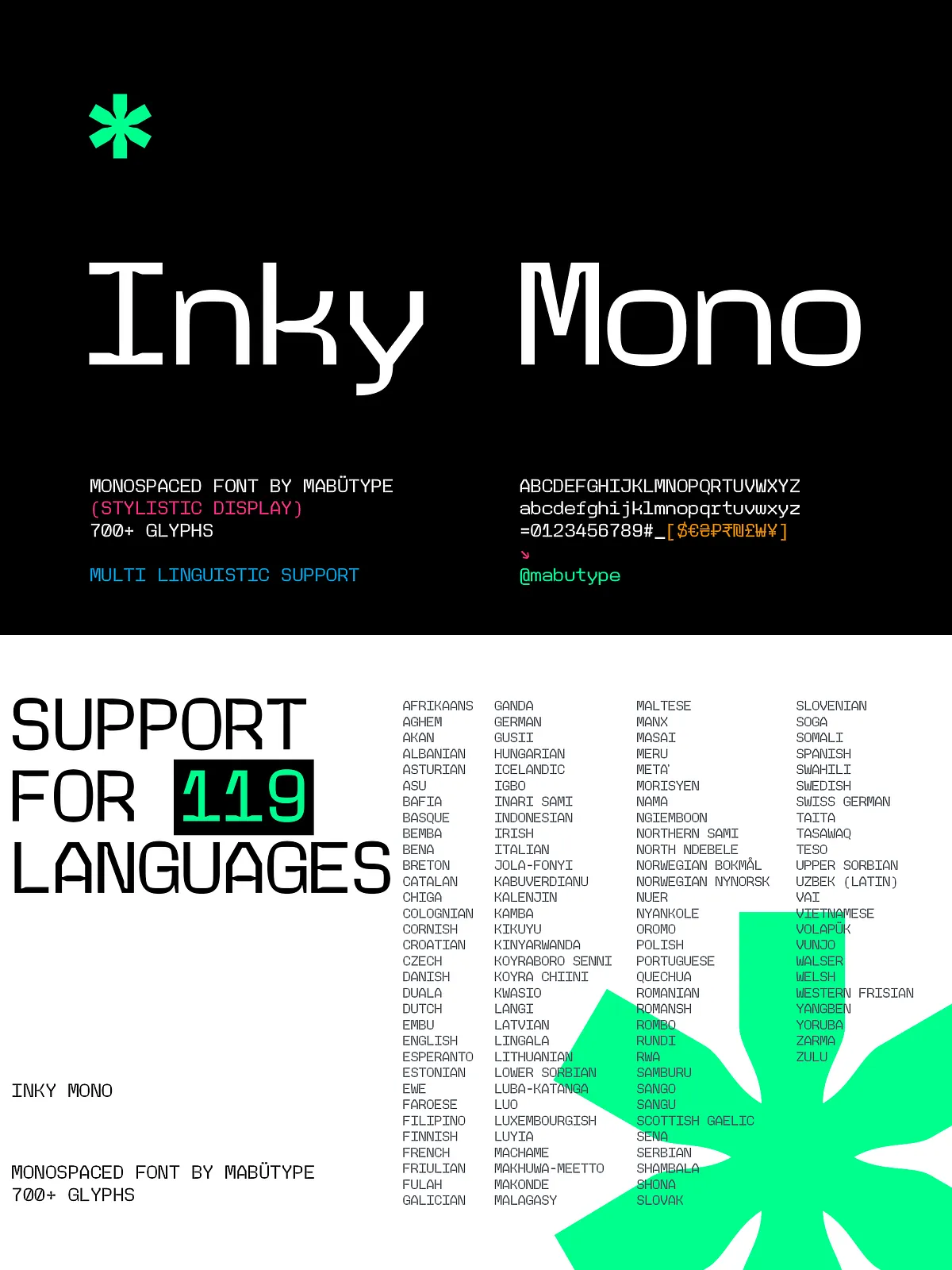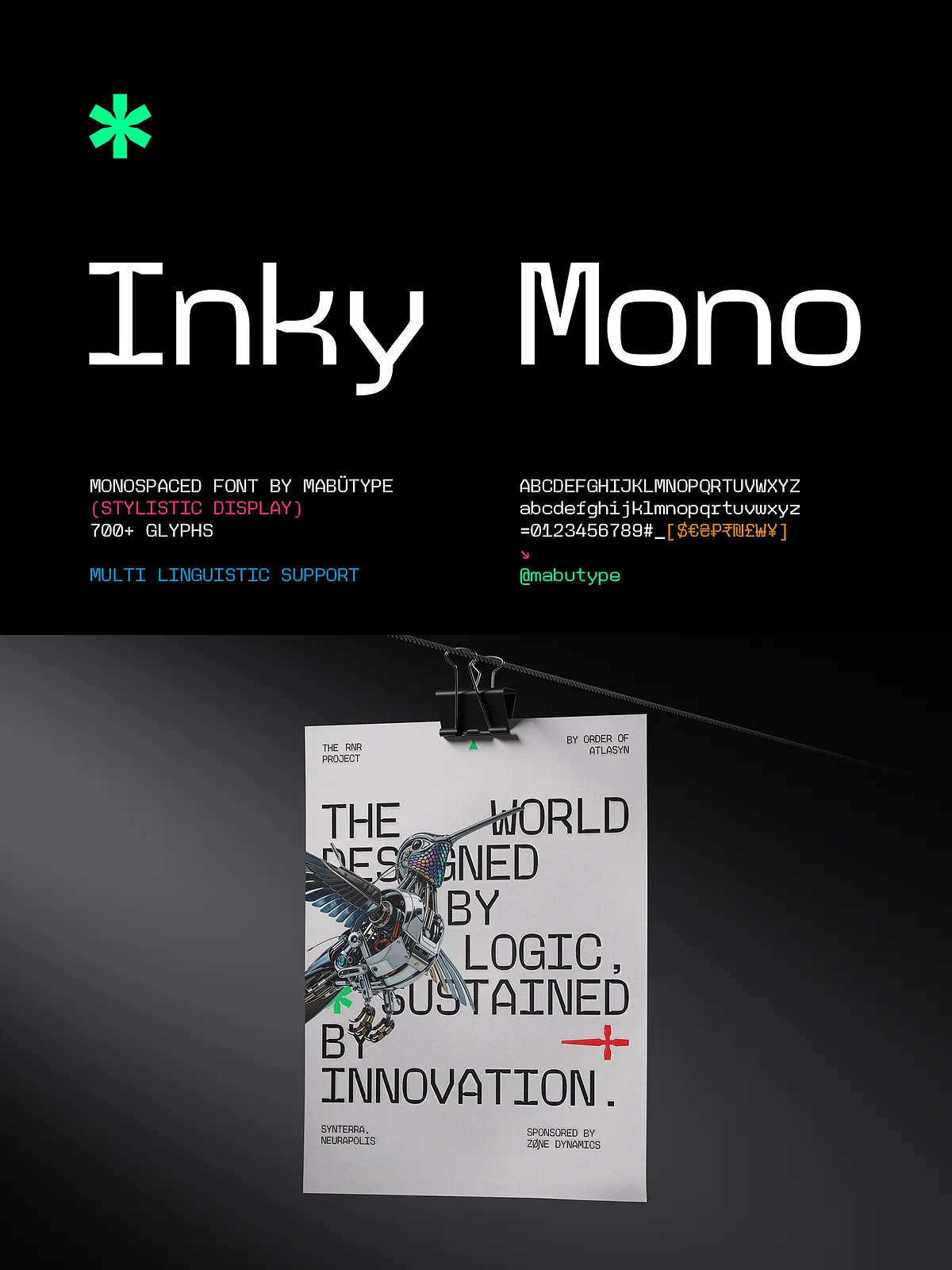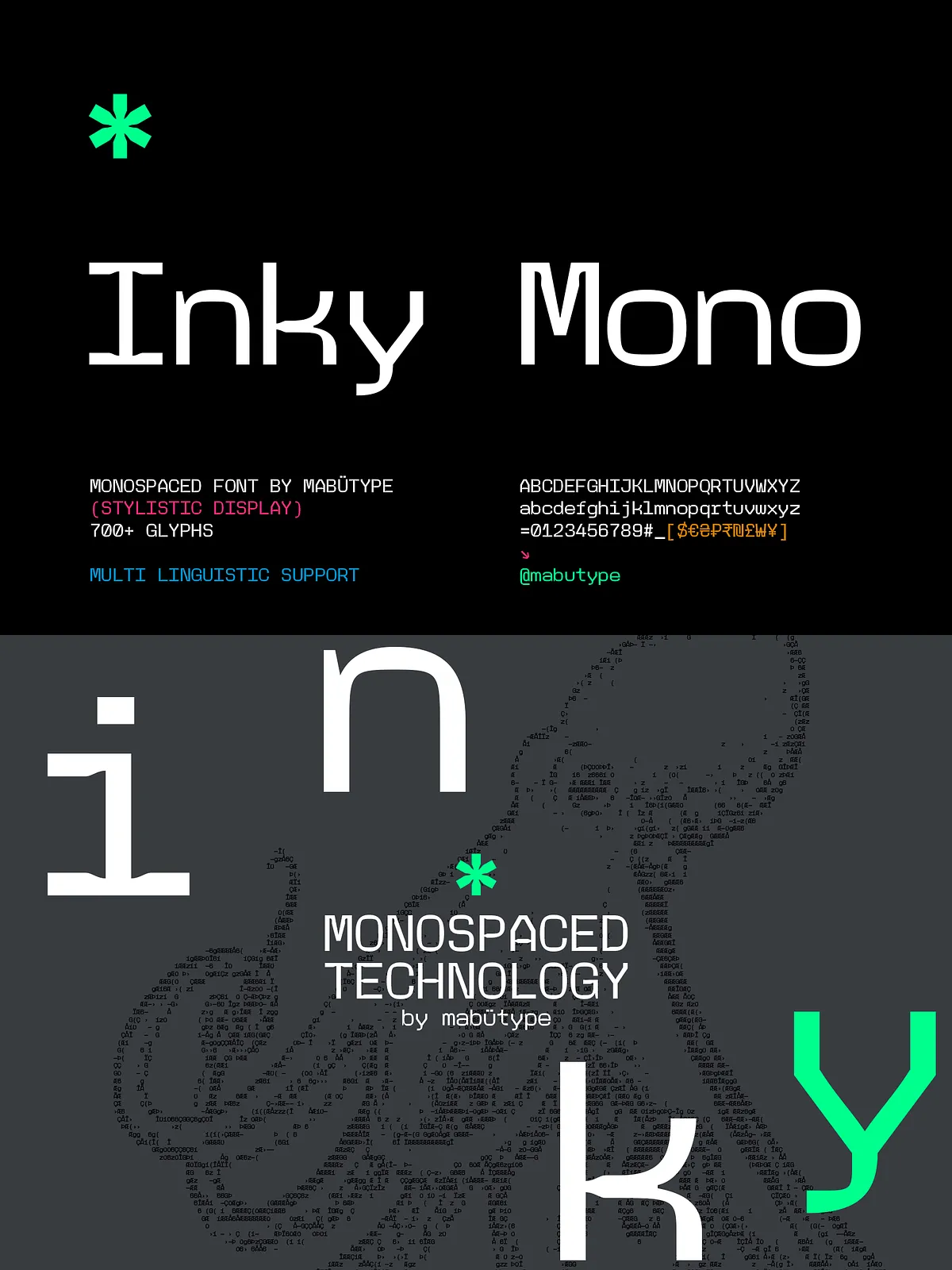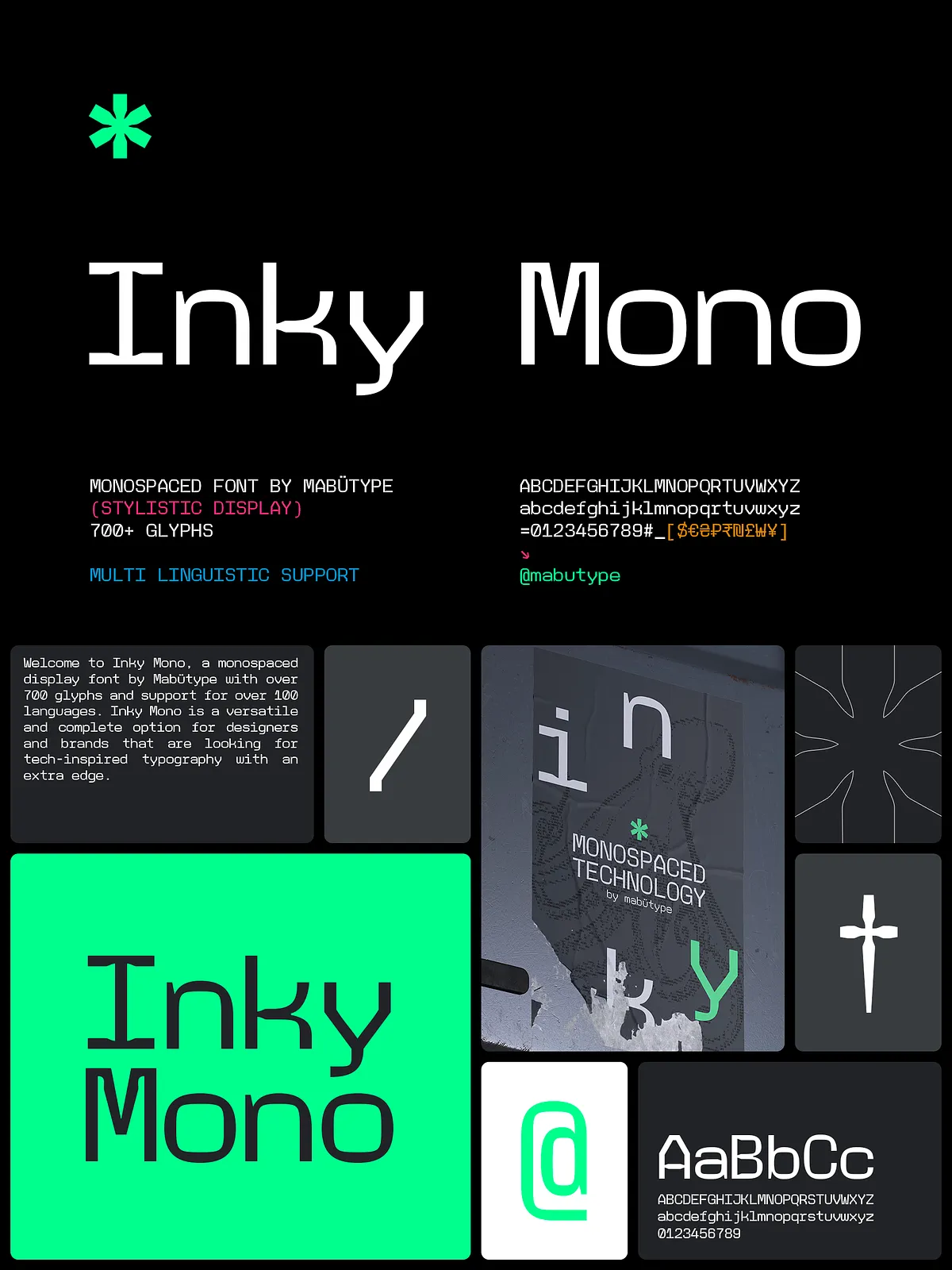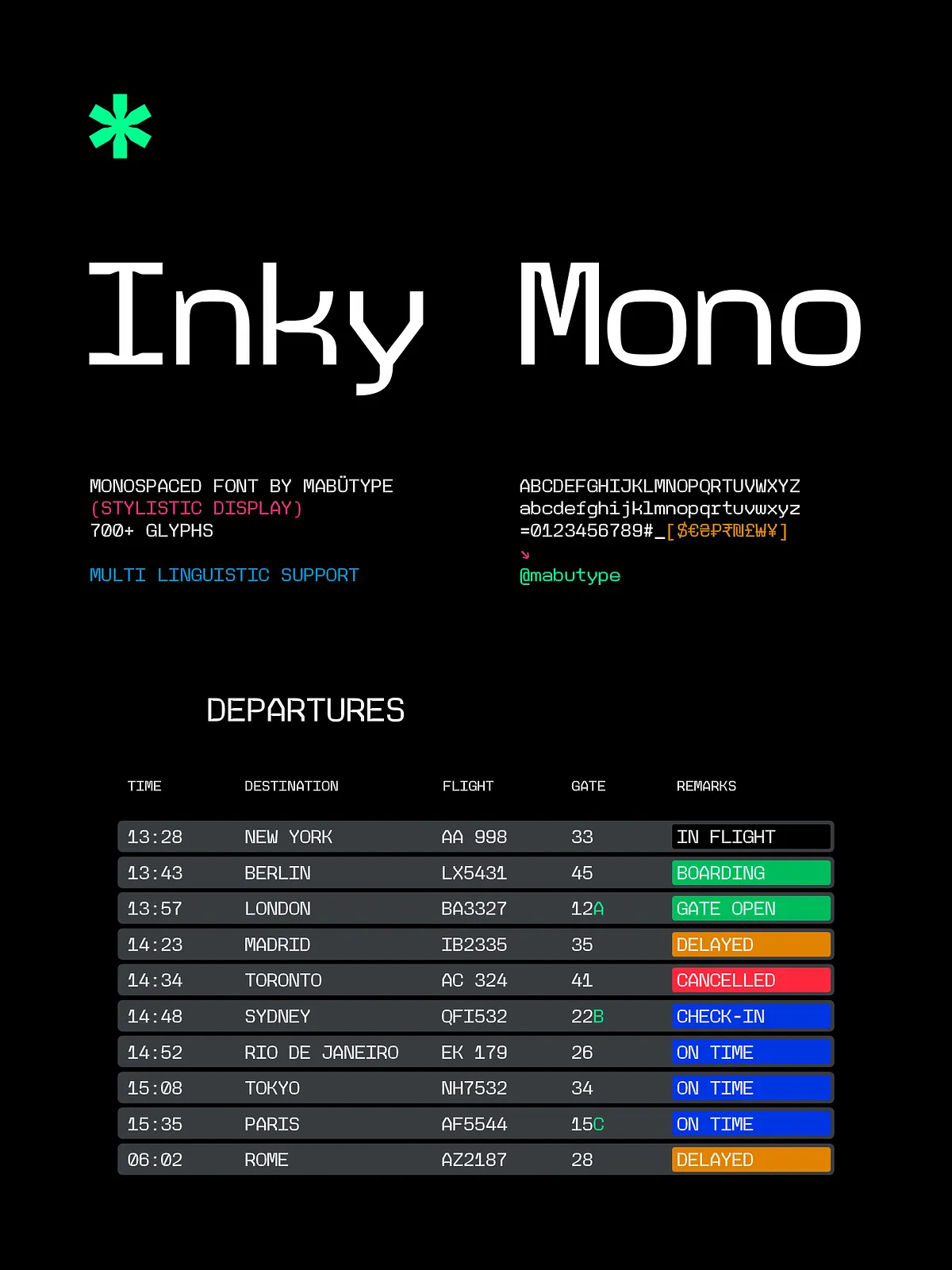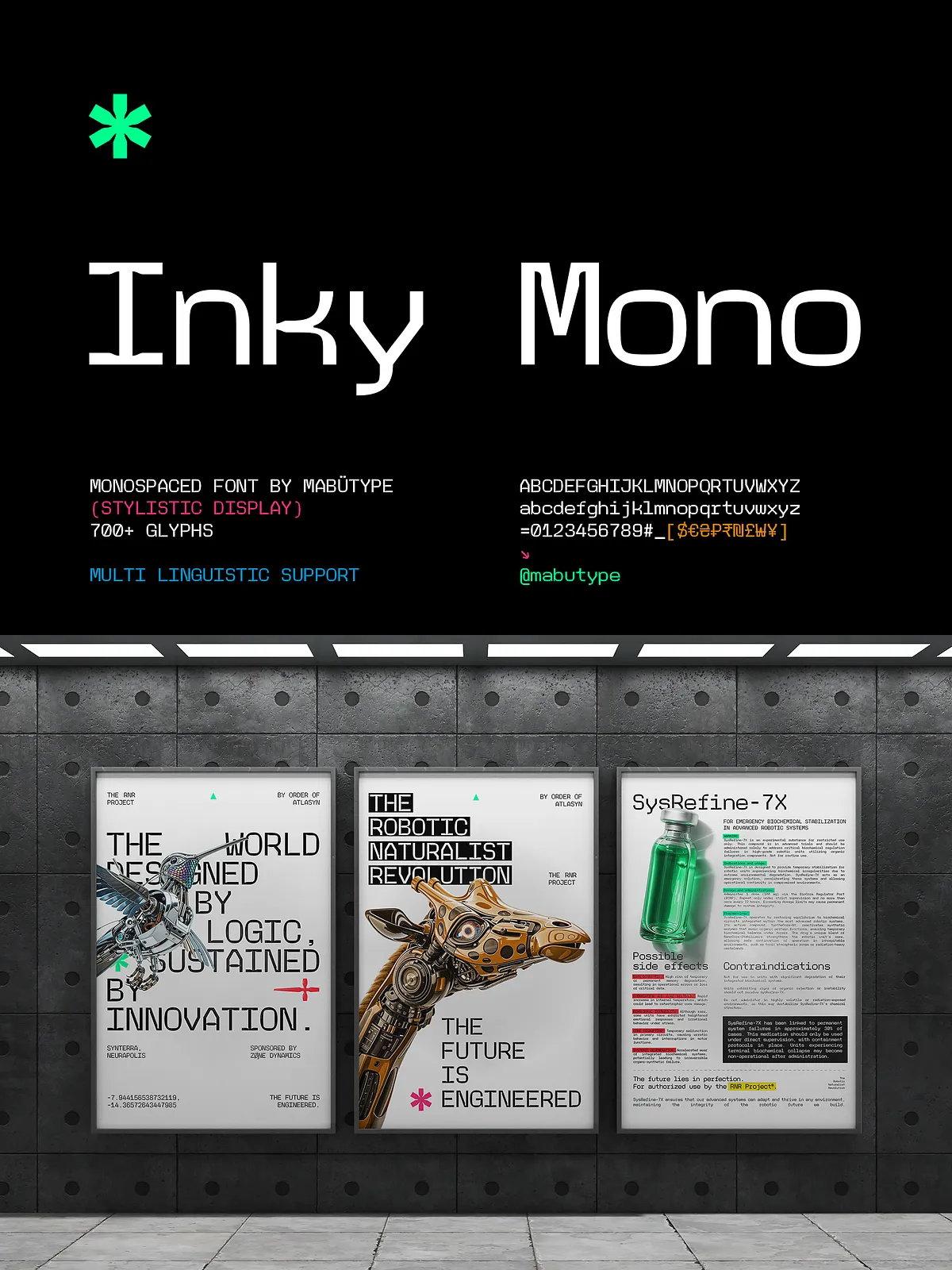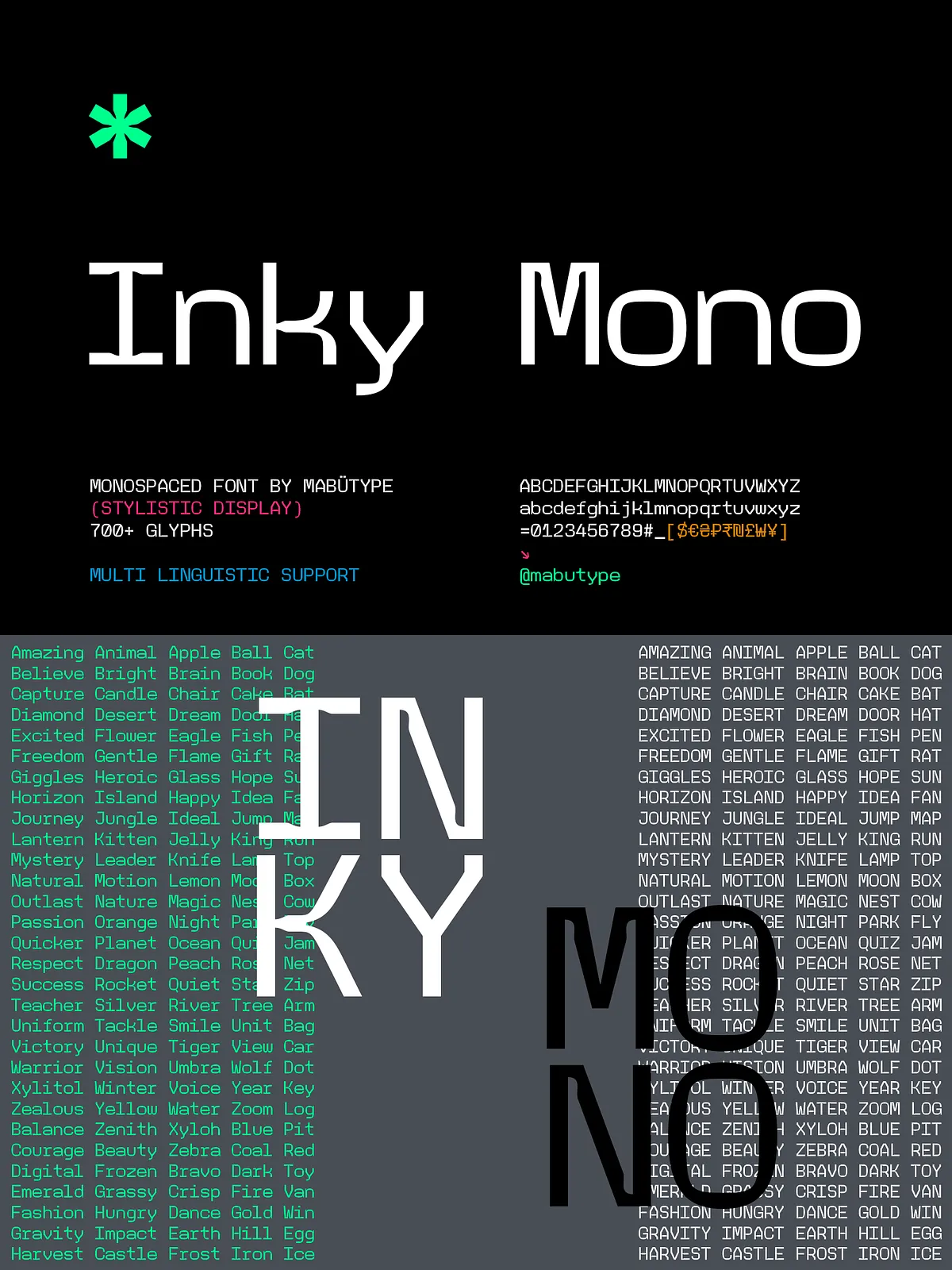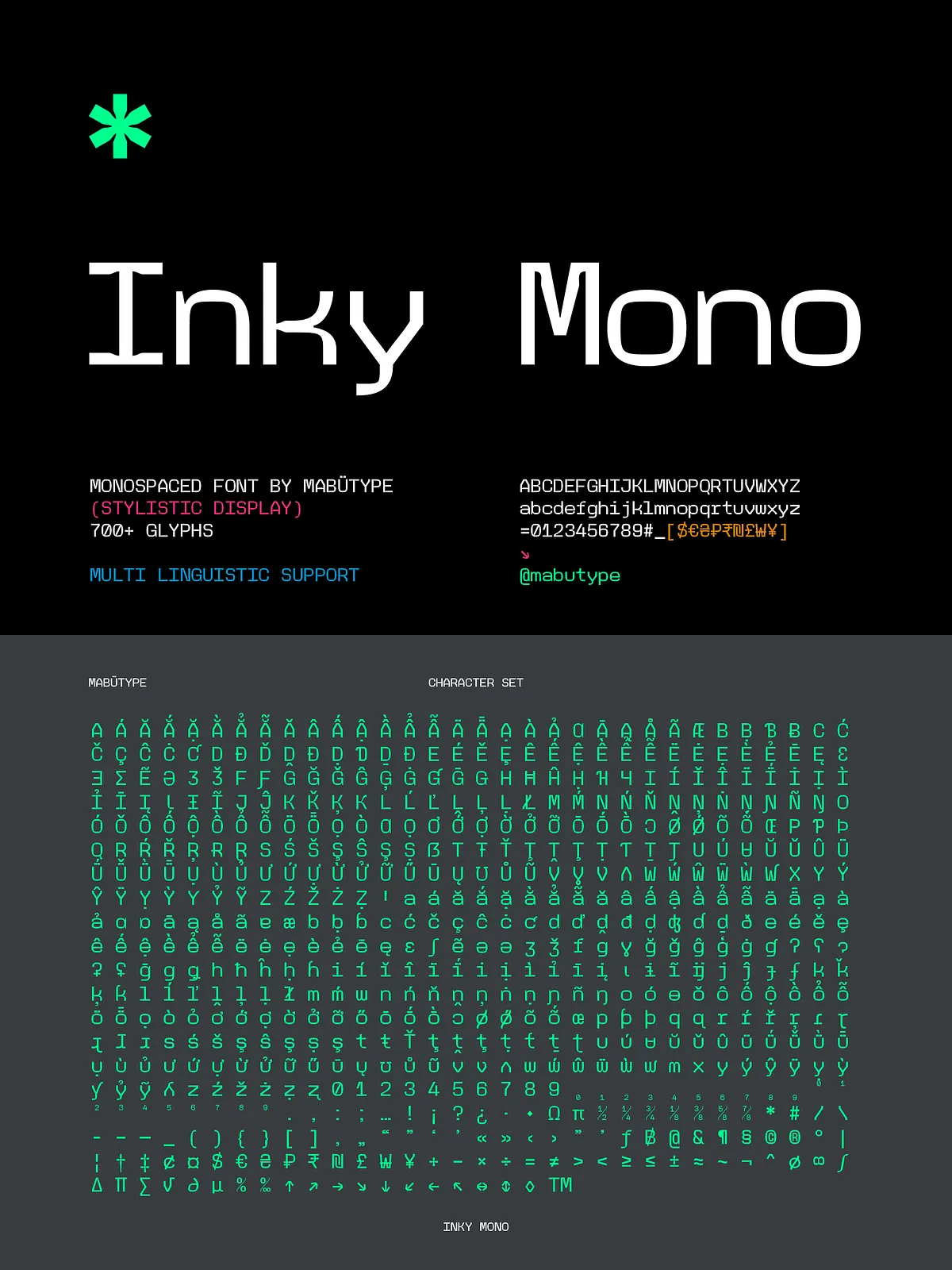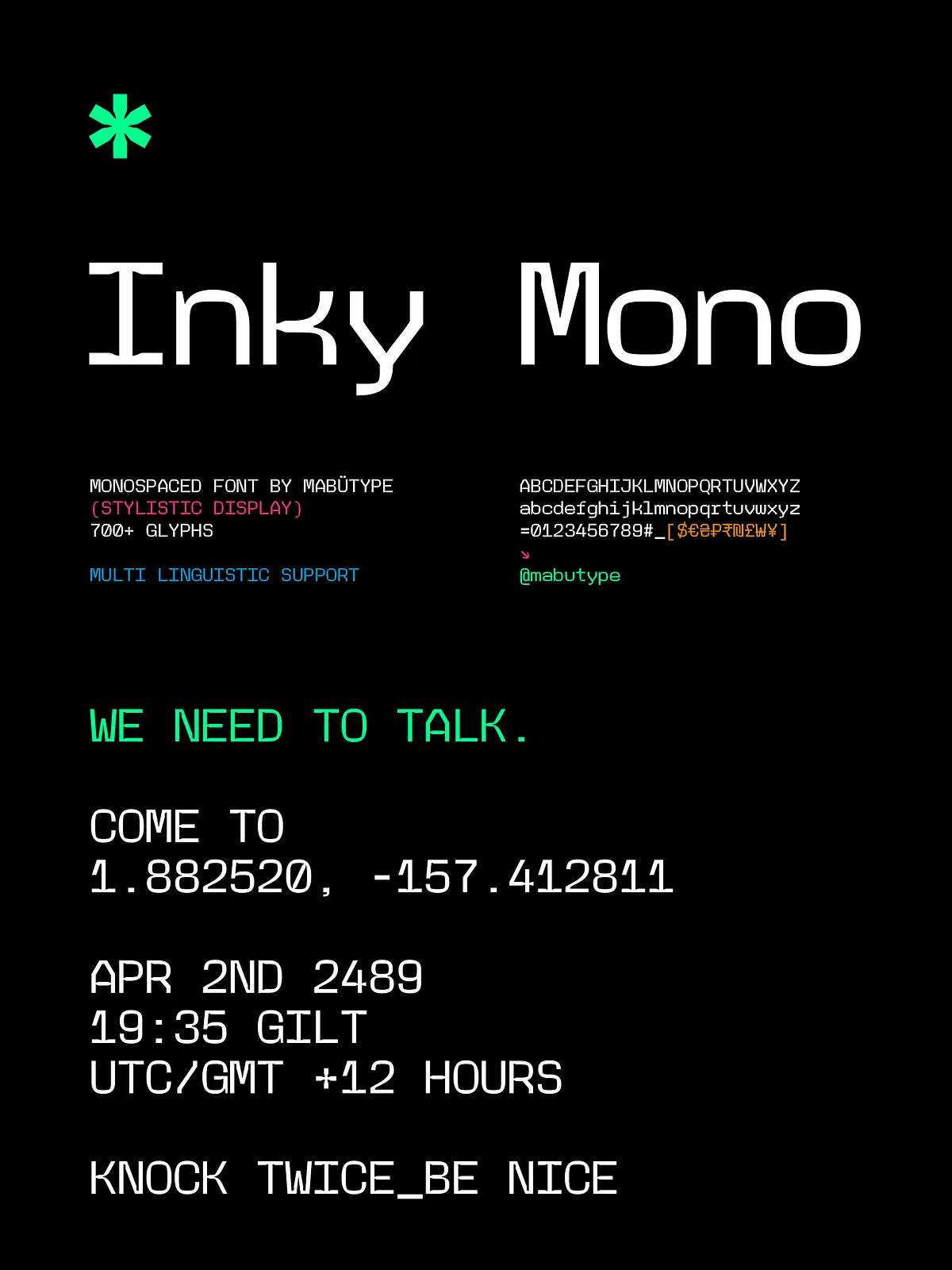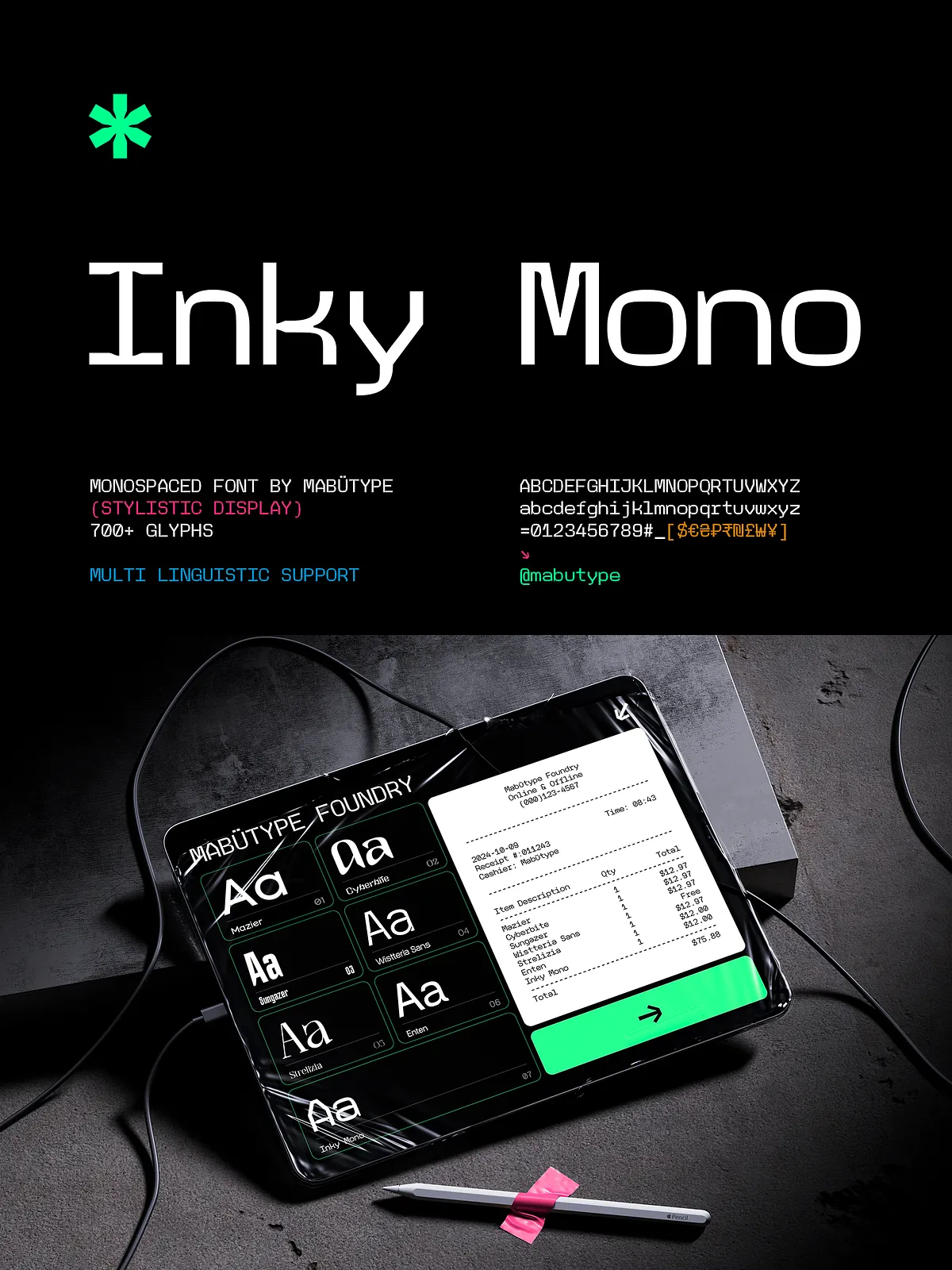
Introducing Inky Mono, a bold, expressive monospaced display font crafted by Mabütype for designers, developers, and brands who demand more than just technical alignment. With over 700 unique glyphs and comprehensive support for over 100 languages, Inky Mono isn’t just a font—it’s a powerful typographic tool built for global creativity, digital innovation, and design with a statement.
Unleash Creative Power with a Foundation of Precision
Inky Mono marries the rigid consistency of monospaced alignment with the expressive flair of modern display typography. Engineered for control and flair, this font family ensures perfect grid alignment, even spacing, and seamless readability—ideal for coding interfaces, digital signage, creative branding, and high-impact editorial layouts. Every character is constructed with intention, offering a balance of mechanical precision and artistic edge.
700+ Glyphs: Where Detail Meets Function
Designed for complexity and completeness, Inky Mono features more than 700 glyphs, including:
- Extended Latin character sets with diacritics
- Specialized punctuation for technical and narrative text
- Mathematical symbols and scientific notation
- Alternative characters for stylistic variation
- Contextual ligatures for smoother, professional text flow
This richness means you won’t need to switch fonts mid-project. Inky Mono adapts to your needs—whether you’re building a code editor interface, designing a music album cover, or crafting a multilingual product label.
Global Language Support: Designed for Real-World Use
From French to Finnish, from Russian to Arabic (via Unicode), Inky Mono supports an impressive range of languages and scripts. This makes it ideal for:
- International brand identity projects
- Global digital experiences and web content
- Technical documentation across regions
- Academic and research publications with multilingual content
No more compatibility gaps. No more font fallbacks. Just consistent, professional typography across borders.
Perfect for Designers Who Want Impact
Inky Mono thrives where clarity meets style. Whether you’re building a futuristic tech brand identity or a retro-futuristic digital zine, this font delivers the edge your concept deserves:
- UI/UX Design – Perfect for dashboard interfaces, coding environments, and terminal-style design elements.
- Branding & Logos – Stand out with a monospaced signature that feels modern, sharp, and memorable.
- Music & Film Projects – Ideal for album arts, movie title cards, and digital promos with a tech aesthetic.
- Creative Typography & Packaging – Use it to make T-shirts, posters, and product boxes stand out with a digital-age edge.
More Than a Font—A Statement in Every Line
Inky Mono isn’t just a typeface. It’s a declaration: that technology and design shouldn’t be cold or generic. It’s about injecting soul into code, rhythm into data, and character into every letter. From sleek minimalist displays to chaotic, artistic compositions, Inky Mono brings purpose and power to every word.